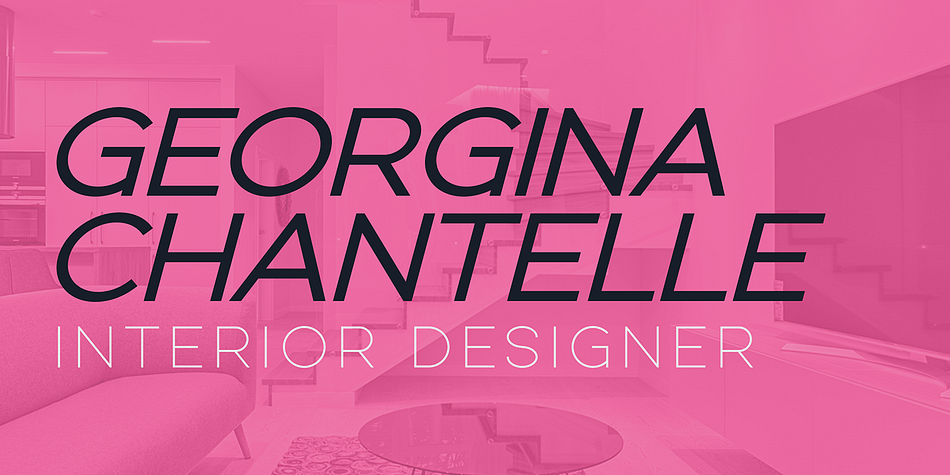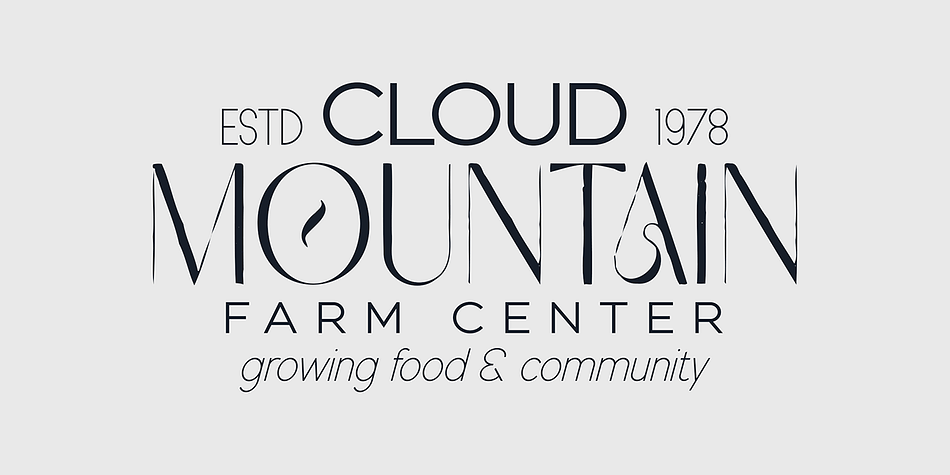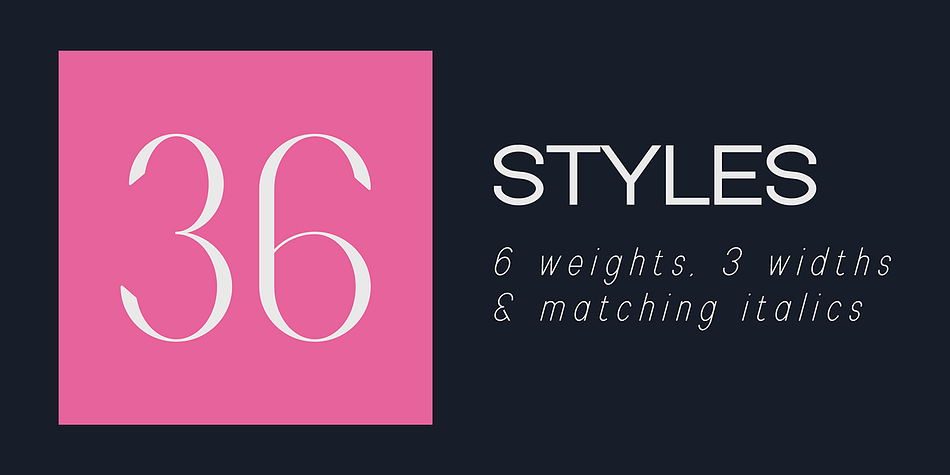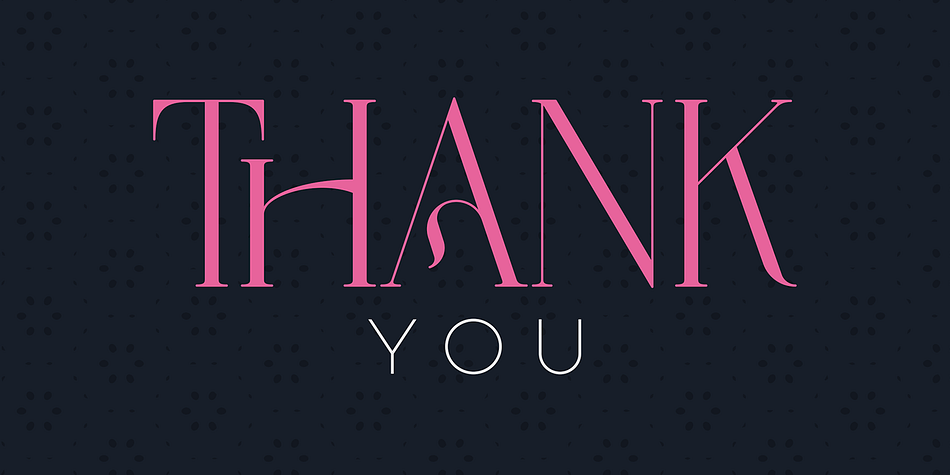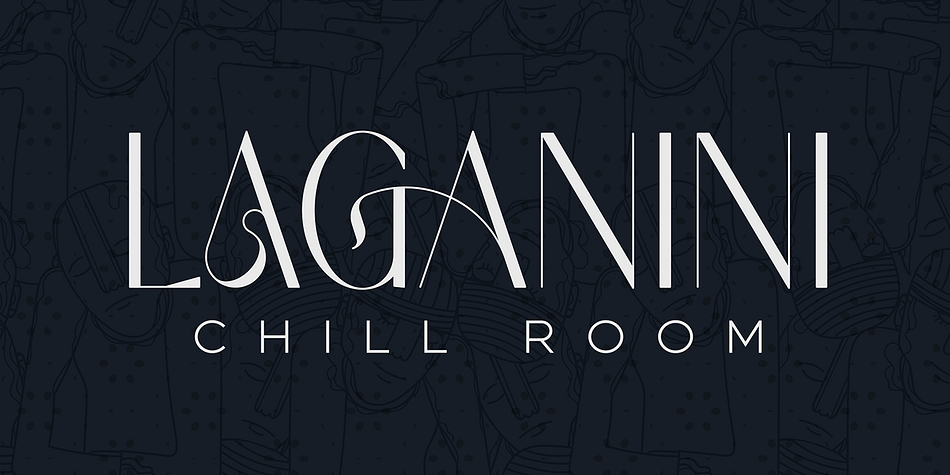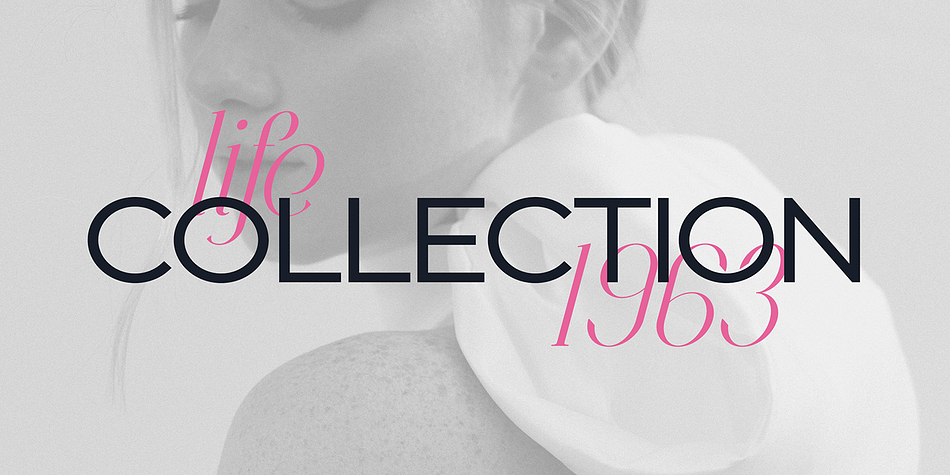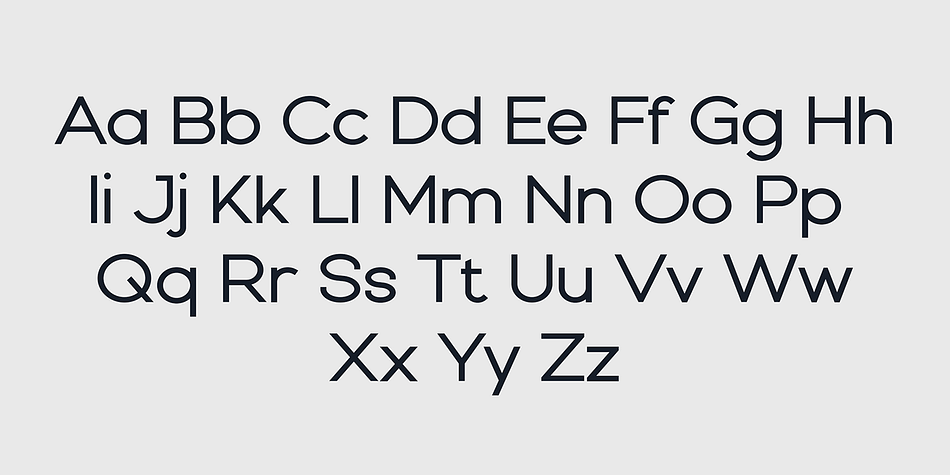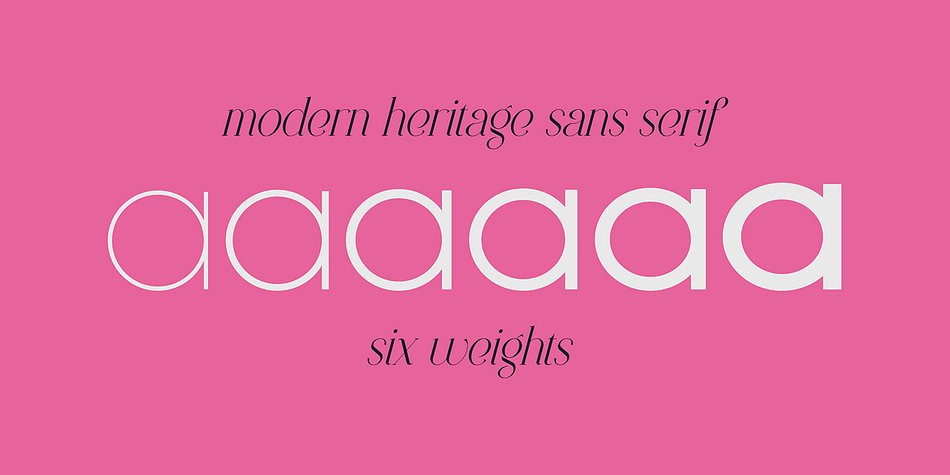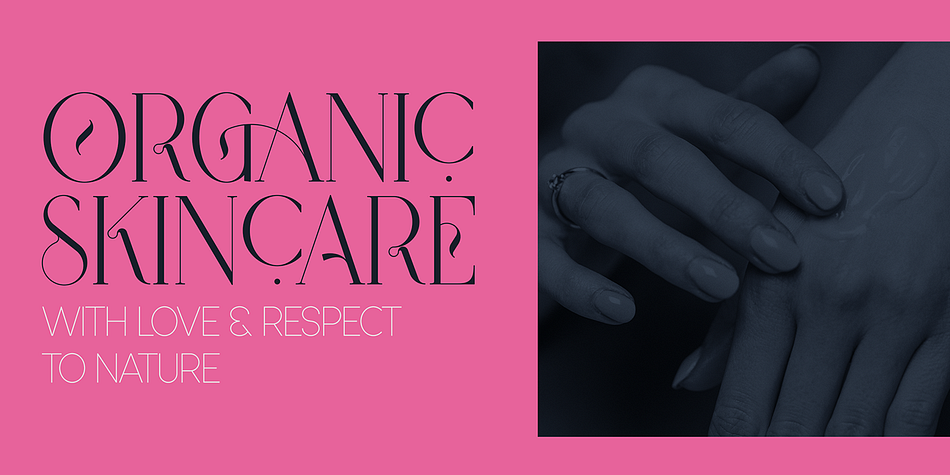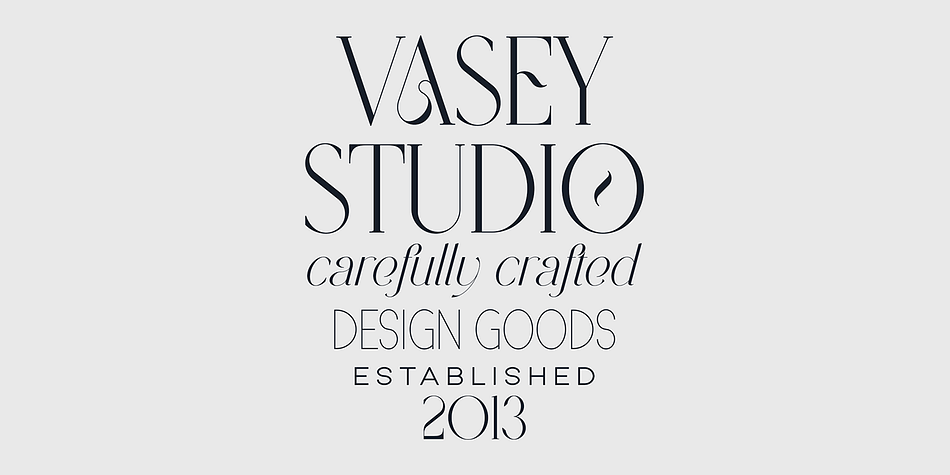
Modern Heritage
Modern Heritage is a display and sans serif font family. This typeface has forty-two styles and was published by VPcreativeshop.
Discover the versatility of Modern Heritage, a font family designed to elevate your typography game. Featuring serif, display, and sans serif styles, this font family offers regular, rough, and italic versions, as well as ligature and alternate glyphs for added creative freedom. The sans serif style boasts six weights with three widths and italics, making it the perfect choice for all your design needs. Plus, with support for 87 languages, you can communicate your message to a global audience seamlessly. Bring a touch of sophistication to your next project with Modern Heritage font family.
FEATURES
Uppercase, lowercase, numeral, punctuation & Symbol
Serif and Display versions - regular, italic, rough + ligature and alternate glyphs
Sans serif - 6 weights with 3 widths and italics for them
42 fonts